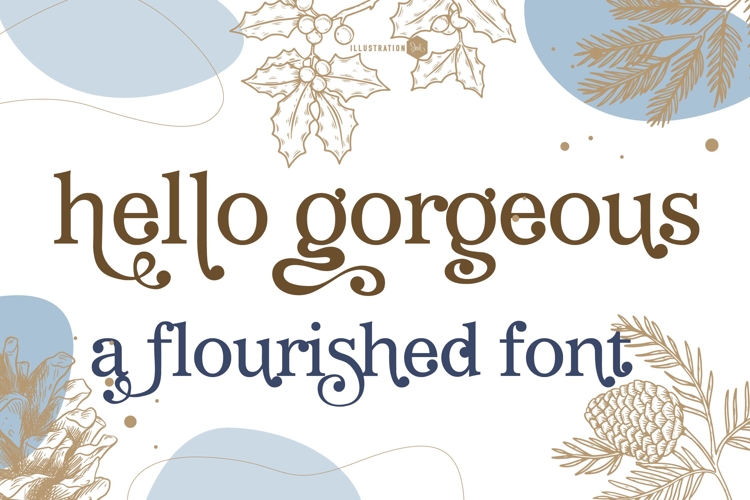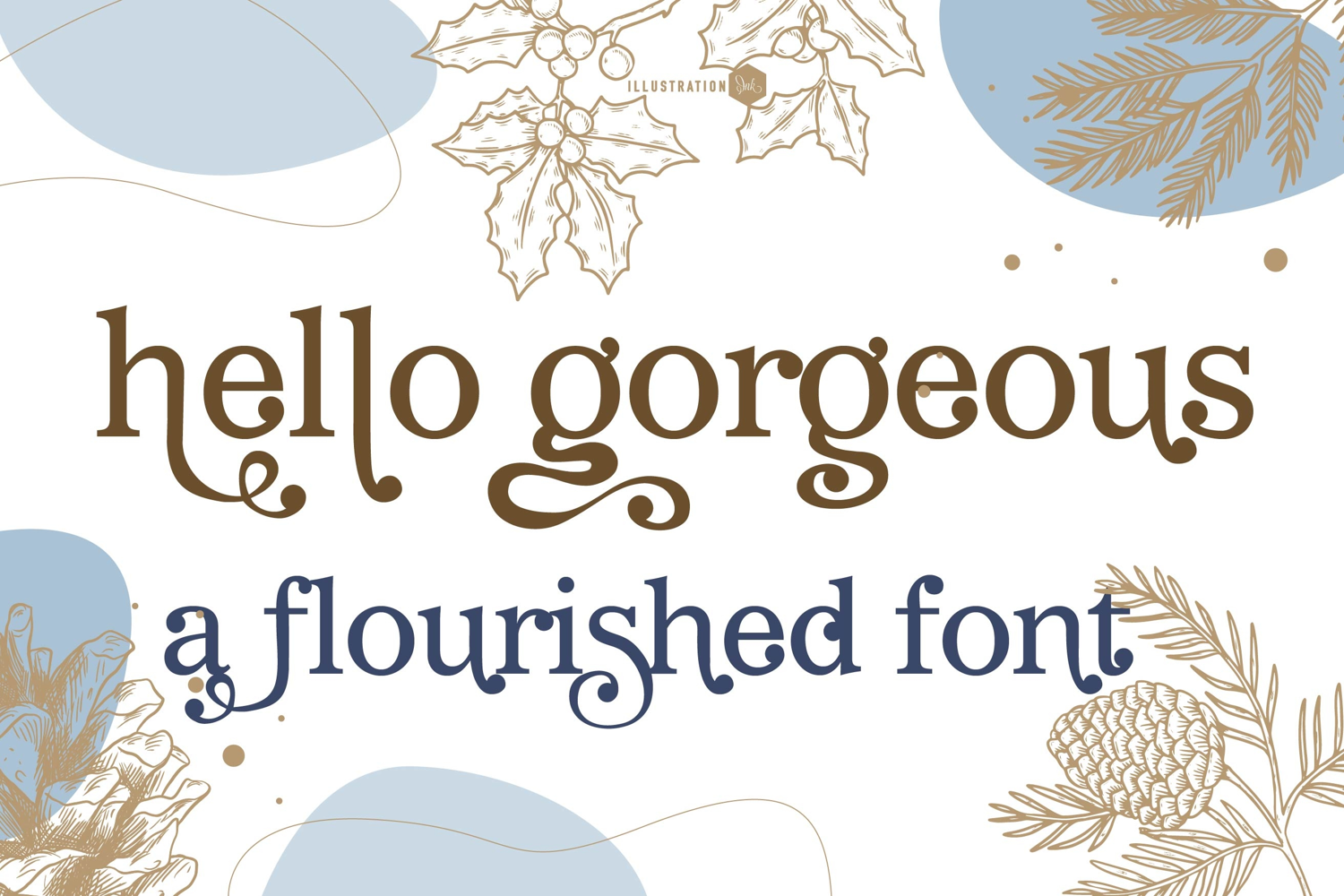
Hello Gorgeous
This hand-crafted, serif font is an all lowercase font with wildly big flourishes on the uppercase. Mix up both cases as you type for best results.